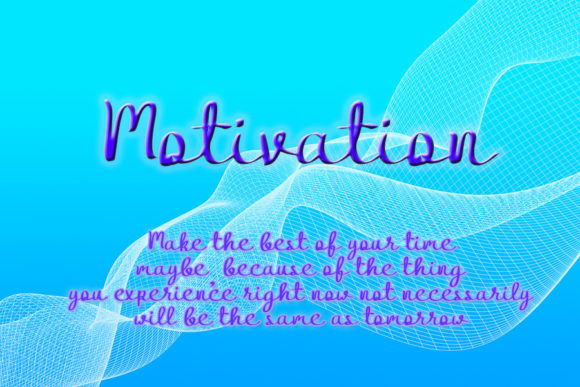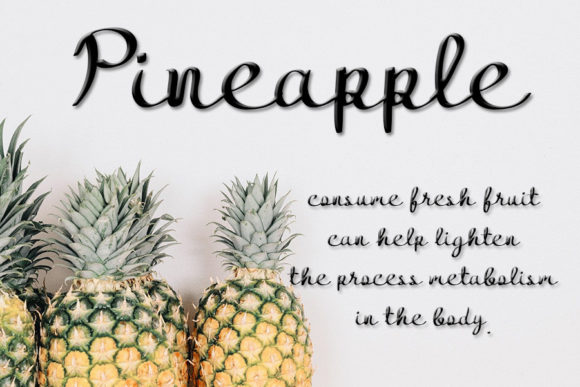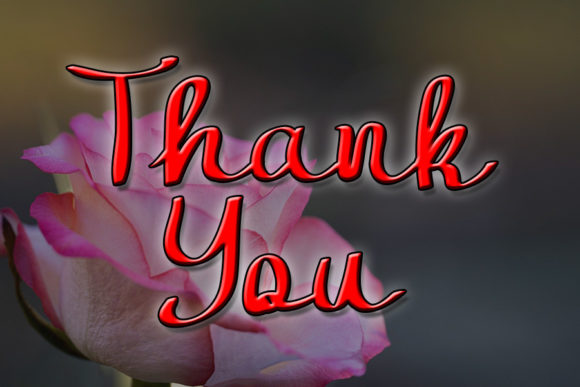
Unpeel the Magic of Banana Font
Have you ever found yourself staring at a blank page, desperate for inspiration to strike? The cursor blinks, taunting you to create something beautiful. And then, it hits you – a burst of creativity that leaves you breathless. This is where the magic of typography comes in, and for designers, a font like Banana Font can be the game-changer they need.
Banana Font is a delicate and elegant handwritten font, designed to bring a touch of sophistication to any design project. Its well-balanced letters are a masterclass in typography, making it the perfect choice for creating spectacular designs that leave a lasting impression.
For designers, Banana Font is a valuable asset, offering endless possibilities for creative expression. Its versatility makes it suitable for a wide range of projects, from wedding invitations to branding materials, and everything in between.
Banana Font Key Features
- Font Family: Banana Font is a custom, handwritten font designed to mimic the appearance of a banana peel.
- Unique Characteristics: Banana Font features a unique, playful design that is sure to add a touch of whimsy to any project. The font includes a range of ligatures and swashes that can be used to create custom, handwritten effects.
Designer Review: Banana Font
Overall, I think the Banana Font is a sweet addition to any design project. Here are some things that really stand out: ✨
- Unique Character: The Banana Font has a distinctive, playful feel that sets it apart from more generic font options. It’s perfect for projects that need a bit of whimsy.
- Legibility: Despite its quirky design, the Banana Font is surprisingly easy to read, even at smaller font sizes.
- Fun Variations: The font comes in a range of styles, from bold to italic, making it versatile and easy to use in different contexts.
Of course, no font is perfect, and the Banana Font has some limitations: ⚠️
- Limited Professional Use: While the Banana Font is great for creative projects, it may not be the best choice for more formal or professional applications.
- No Cyrillic Support: Unfortunately, the Banana Font doesn’t support Cyrillic characters, which can be a limitation for projects targeting Russian or other Eastern European languages.
Overall, I think the Banana Font is a fun and engaging choice for designers looking to add some personality to their work. While it may not be the best option for every project, it’s definitely worth considering for the right use case.
Some popular use cases for Banana Font include:
- Creating playful and eye-catching headlines.
- Designing children’s educational materials.
- Adding a touch of whimsy to social media graphics.